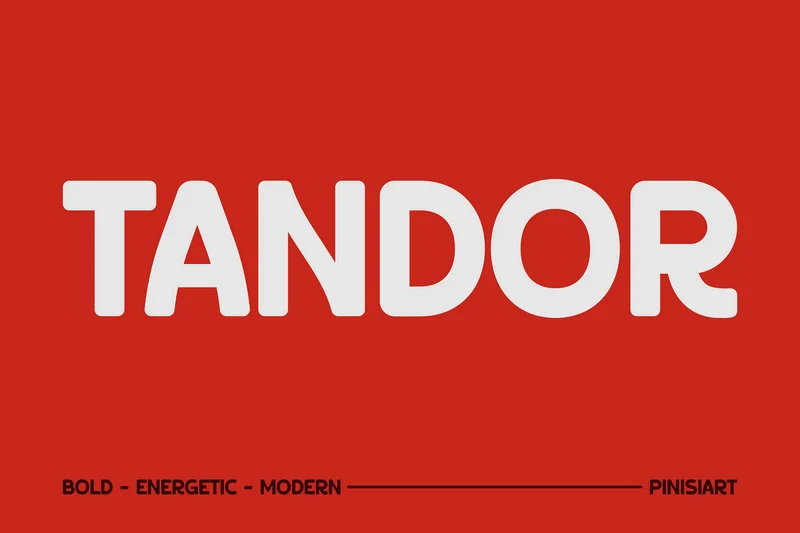
Tandor – Modern Strong Font
Tandor– Strong Modern Typeface for Branding & Posters
Tandor is a bold and energetic geometric typeface designed for powerful visual impact. Its clean lines, sharp terminals, and balanced proportions give every word a modern and expressive character. The letterforms combine strength with clarity, making it perfect for attention-grabbing headlines, striking social media posts, and standout branding projects.
The vibe is strong, confident, and dynamic—crafted to resonate in contexts like fashion campaigns, music posters, lifestyle branding, or startup marketing. With its modern geometric build, Tandor delivers both usability and visual punch, ensuring your message is impossible to ignore.
Whether you’re designing a bold poster, creating a digital campaign, or building a unique brand identity, Tandor commands attention. Its confident presence helps you communicate energy, creativity, and clarity—making it ideal for editorial layouts, product packaging, tech branding, and event promotions. Use Tandor when you want your words to move beyond the screen and create a lasting impression.
Key Features :
Bold & Energetic – Creates powerful, attention-grabbing visuals.
Geometric & Clean – Perfect balance between structure and flow.
Versatile Application – From branding to editorial, digital to print.
Expressive Letterforms – Strong shapes that enhance readability.
Modern Aesthetic – Works across fashion, music, lifestyle, and startup industries.